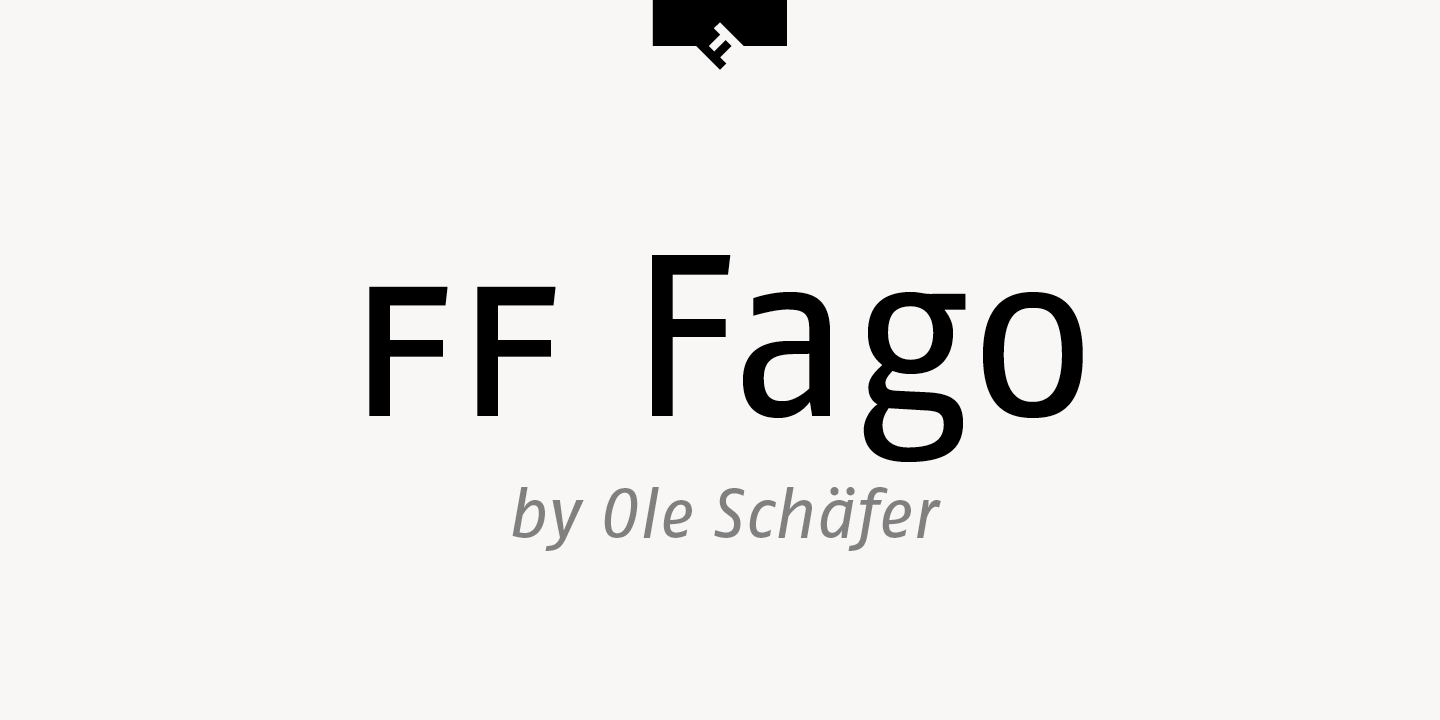
FF Fago Font is perfect for corporate identity systems, professional signage solutions, institutional communications, government publications, transportation branding, healthcare facility wayfinding, and comprehensive brand guidelines that require reliable, utilitarian typography with exceptional functionality.
This font is exciting because it delivers uncompromising functional excellence and systematic clarity, featuring robust letterforms that convey reliability, efficiency, and professional competence while maintaining optimal readability across all communication environments and application contexts.
The FF Fago Font family includes thin, light, regular, medium, and bold weights with condensed variants, offering uppercase and lowercase letters, systematic numerals, functional symbols, professional punctuation marks, and utilitarian elements designed for comprehensive institutional applications.
System designers consistently choose FF Fago Font Free Download for projects requiring institutional reliability and systematic communication excellence. This essential typeface transforms complex organizational communications into compelling statements of functional clarity that immediately serve diverse audiences across multiple languages and institutional contexts. The font's systematic character makes it exceptionally effective for healthcare systems, educational institutions, and government agencies where information hierarchy and universal accessibility must be optimized for maximum public service impact and institutional efficiency. Its utilitarian foundation bridges technical functionality with human readability, making it invaluable for organizations communicating critical information to broad public audiences and professional stakeholders. The meticulously engineered letterforms maintain their clarity across hospital signage and government documentation, ensuring consistent brand recognition and institutional authority. Whether you're developing healthcare system identities, creating educational institution standards, or designing government communication guidelines, this typeface provides the systematic reliability and functional excellence that distinguishes world-class institutional design from generic organizational typography, establishing immediate trust among diverse audiences who expect clear communication and appreciate the thoughtful balance between systematic efficiency and human-centered accessibility in their daily interactions with public institutions and professional services.